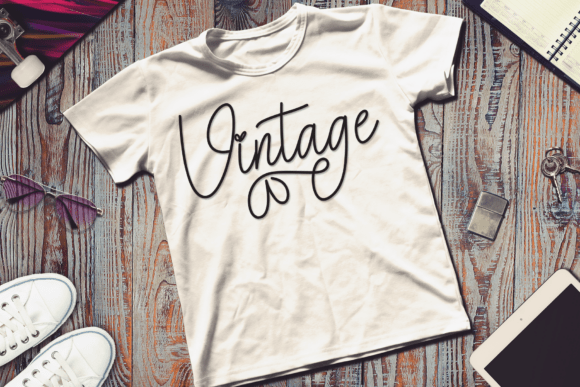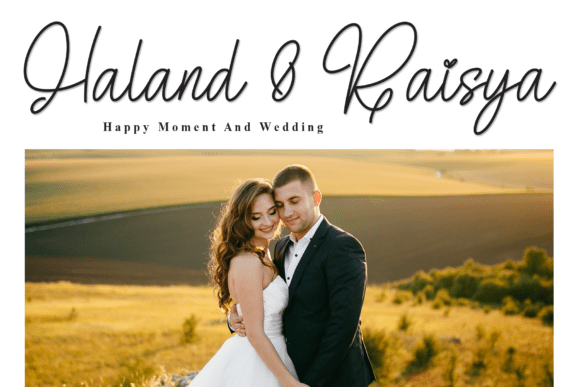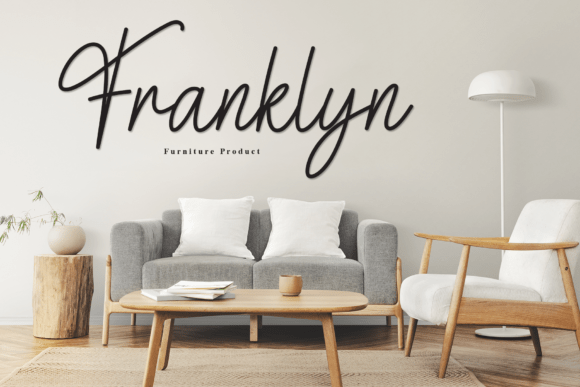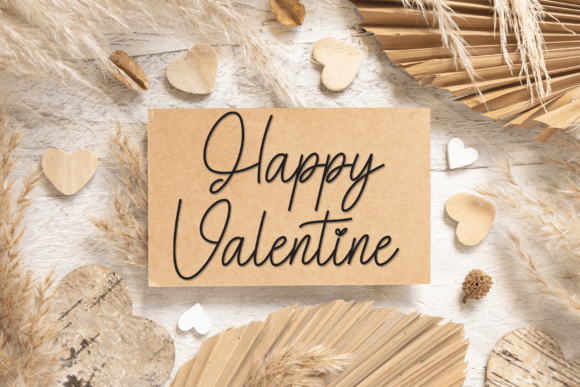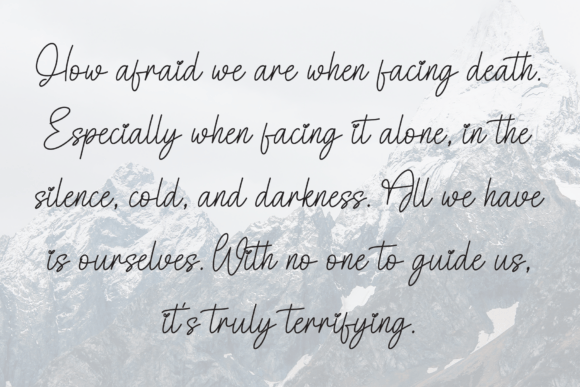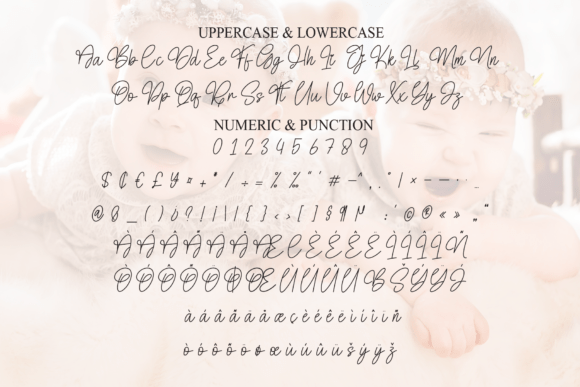
Have you ever been brainstorming ideas for a special project, and suddenly a spark of creativity hits you? Maybe it’s the perfect phrase for a wedding invitation, or the playful tone for a children’s book. Whatever it is, the right font can make all the difference. And that’s where the Besty Baby Font comes in – a charming handwritten display font designed to bring a sprinkle of sweetness to your designs.
This delightful font is perfect for adding a personal touch to your creative projects. With its animated style and endearingly personal letters, the Besty Baby Font is a valuable asset for designers looking to craft unique and heartfelt designs. Whether you’re working on a wedding invitation, a birthday card, or any other project that needs a dash of fun, this font is sure to bring your ideas to life.
Besty Baby Font Key Features
- Unique Characteristics: Hand-drawn, whimsical design with a mix of modern and traditional elements, perfect for baby-related products and designs
- Font Style: Casual, cursive, and playful, ideal for headings, titles, and short texts
Besty Baby Font Review
I recently had the chance to work with the Besty Baby Font, and I must say it’s a cute and playful addition to any project. ✨ The font’s rounded edges and childlike charm make it perfect for kids’ brands, nursery decor, or any design that needs a touch of whimsy.
- The font’s versatility in terms of size and color makes it easy to use in various design applications.
- The rounded edges give the font a friendly and approachable feel, making it perfect for brands targeting young audiences.
- The font is highly legible, even at smaller font sizes, making it suitable for a wide range of design uses.
- ⚠️ The font may not be suitable for professional or corporate designs, as it may come across as too playful or immature.
- ⚠️ The font lacks a strong, bold weight, which may limit its use in headings or titles.
- ⚠️ The font may not be as effective in digital applications, where clarity and legibility are crucial.
While the Besty Baby Font has its limitations, it’s a great addition to any design project that needs a touch of playfulness. With its versatility, legibility, and cute charm, it’s perfect for kids’ brands, nursery decor, or any design that needs a friendly and approachable feel.
Tips for Getting the Most Out of Besty Baby Font
To get the most out of Besty Baby Font, use it for:
- Children’s book covers and illustrations.
- Baby product branding and packaging.
Remember to pair Besty Baby Font with complementary fonts to create a visually appealing design.